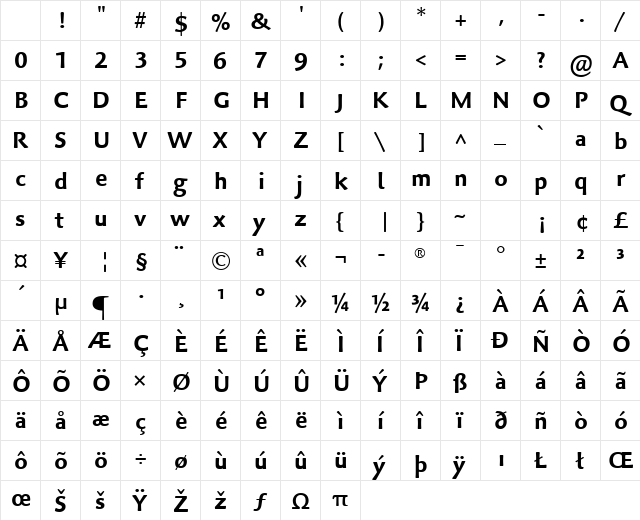
Complete Palatino Sans Arabic Bold glyph index. Displaying only characters natively supported by Palatino Sans Arabic Bold font.
Palatino Sans Arabic is a composed and adaptable typeface that performs quietly and consistently across a wide range of design contexts. Its bold stroke weight gives it real presence on the page.